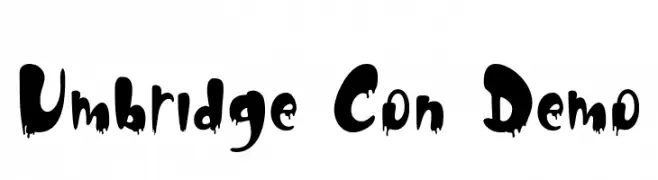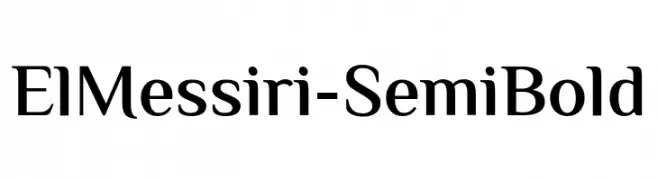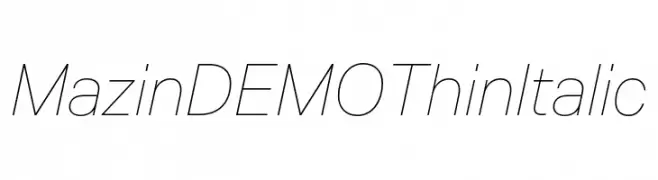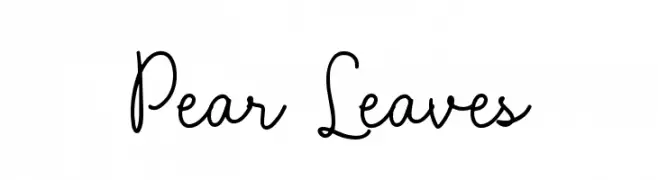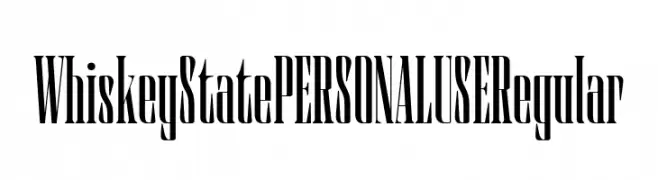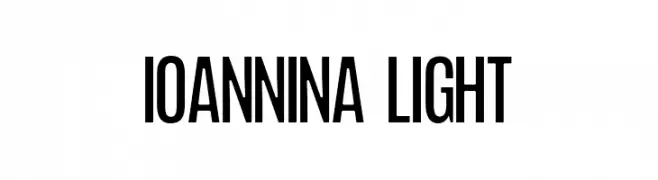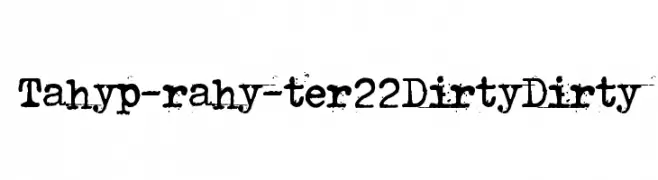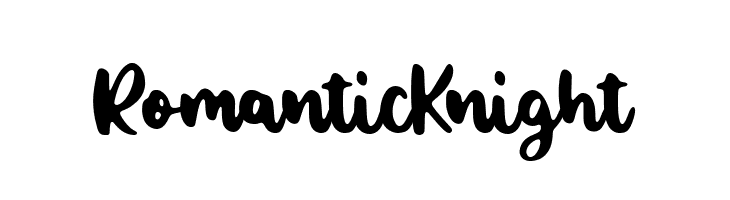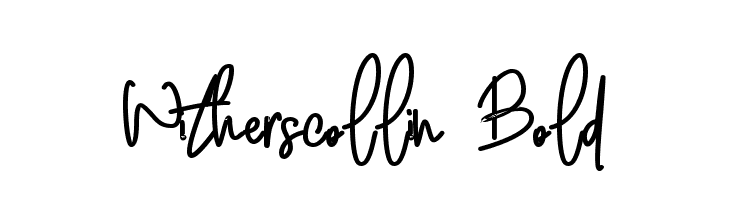
A bold, dripping font with a playful and eerie style.
A clean, modern semi-bold font with a balanced and readable design.
An elegant, italic typeface with high contrast and a modern yet vintage charm.
A sleek, thin, and italicized font with a modern and elegant design.
A playful, handwritten font with smooth curves and a casual elegance.
A bold, elegant script font with a flowing, handwritten style.
A bold, vintage-style font with elongated, narrow characters and high contrast.
A sophisticated script font with elegant, flowing cursive strokes.
A modern, condensed sans-serif font with a clean and sleek appearance.
A distressed, vintage typewriter-style font with a rugged, grunge texture.